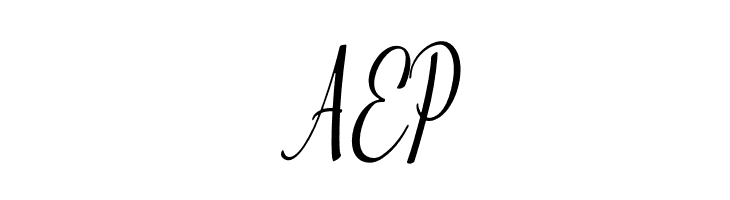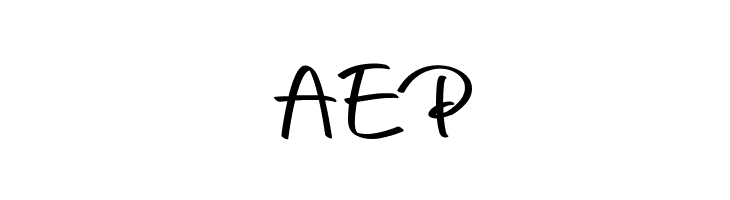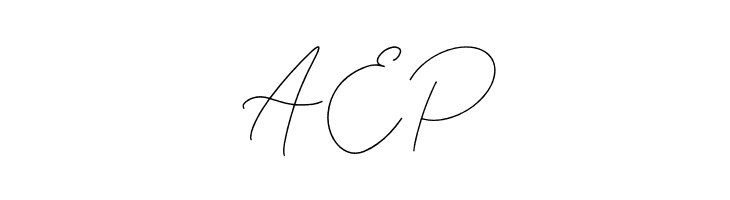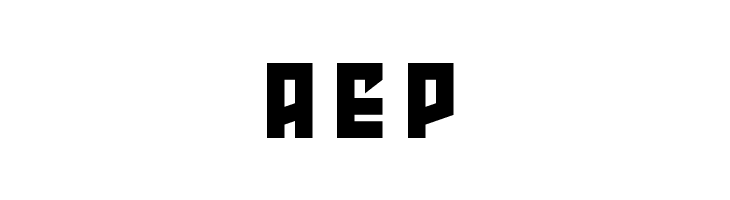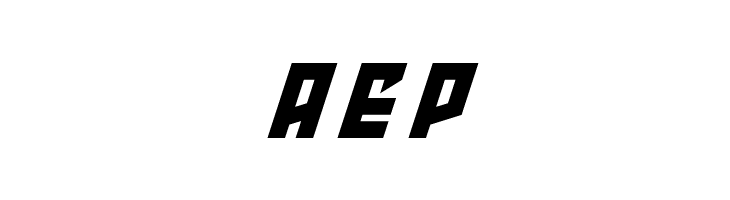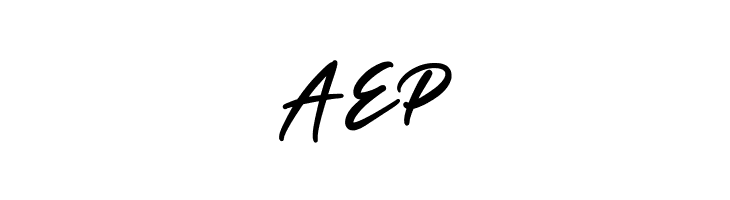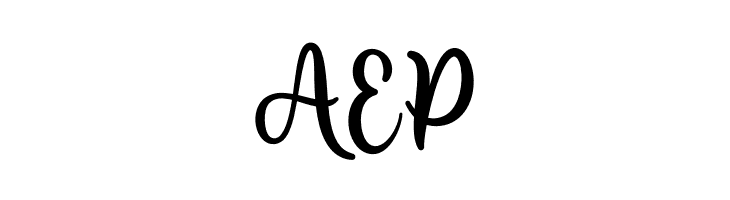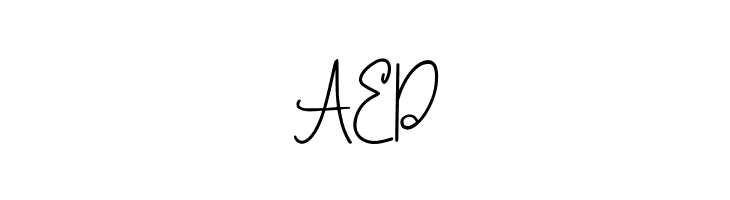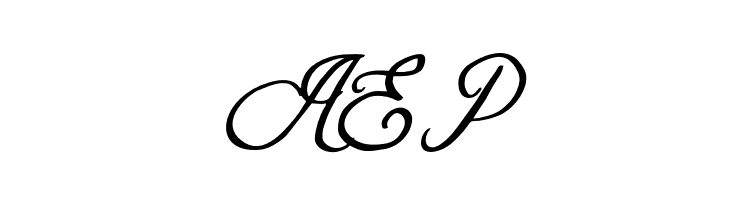
A bold, geometric font with sharp angles and a futuristic feel.
A bold, angular, and italic font with a futuristic and dynamic style.
A flowing, elegant script font with expressive cursive strokes.
A dynamic, expressive handwritten script with sweeping curves and elegant loops.
A sophisticated serif font with elegant, elongated strokes and refined presence.
A refined serif font with high contrast and elegant strokes.
Hand-drawn dingbat font with animal and object illustrations.
A fluid and elegant cursive font with smooth, flowing lines.
A lively, expressive script font with a handwritten feel and medium contrast.
An elegant script font with flowing, cursive letters and ornate details.
An elegant script font with flowing, interconnected letters and high contrast strokes.
A charming and fluid script font with elegant, flowing letterforms.
A dynamic and fluid script font with elegant curves and a handwritten feel.
A dynamic and fluid script font with smooth, flowing lines and elegant curves.
A playful and elegant script font with a handwritten style and decorative flourishes.
A bold, geometric font with a strong, industrial and modern aesthetic.
Bold, outlined font with a collegiate, varsity style.
A sophisticated script font with elegant loops and swirls.
A bold, brush-style font with a hand-painted, expressive look.
A bold, brush-style font with dynamic, hand-painted strokes.
An elegant script font with flowing swashes and calligraphic flair.
A bold, expressive brush-style font with dynamic, hand-drawn strokes.
A playful, handwritten font with dynamic strokes and a whimsical flair.
A playful, casual handwritten font with rounded, consistent strokes.
A lively brush script font with expressive, handcrafted strokes.
A whimsical and elegant script font with flowing, cursive letters and decorative flourishes.
A modern, elegant script font with flowing cursive style.
A bold, italic font with strong, dynamic characters and a modern style.
A modern, geometric font with subtle curves and a friendly aesthetic.
A flowing, cursive script font with elegant loops and swashes.
A dynamic, brush-style font with expressive strokes.
A bold, slanted font with high contrast and angular shapes, ideal for dynamic headlines.
A bold, italicized font with angular lines and a dynamic style.